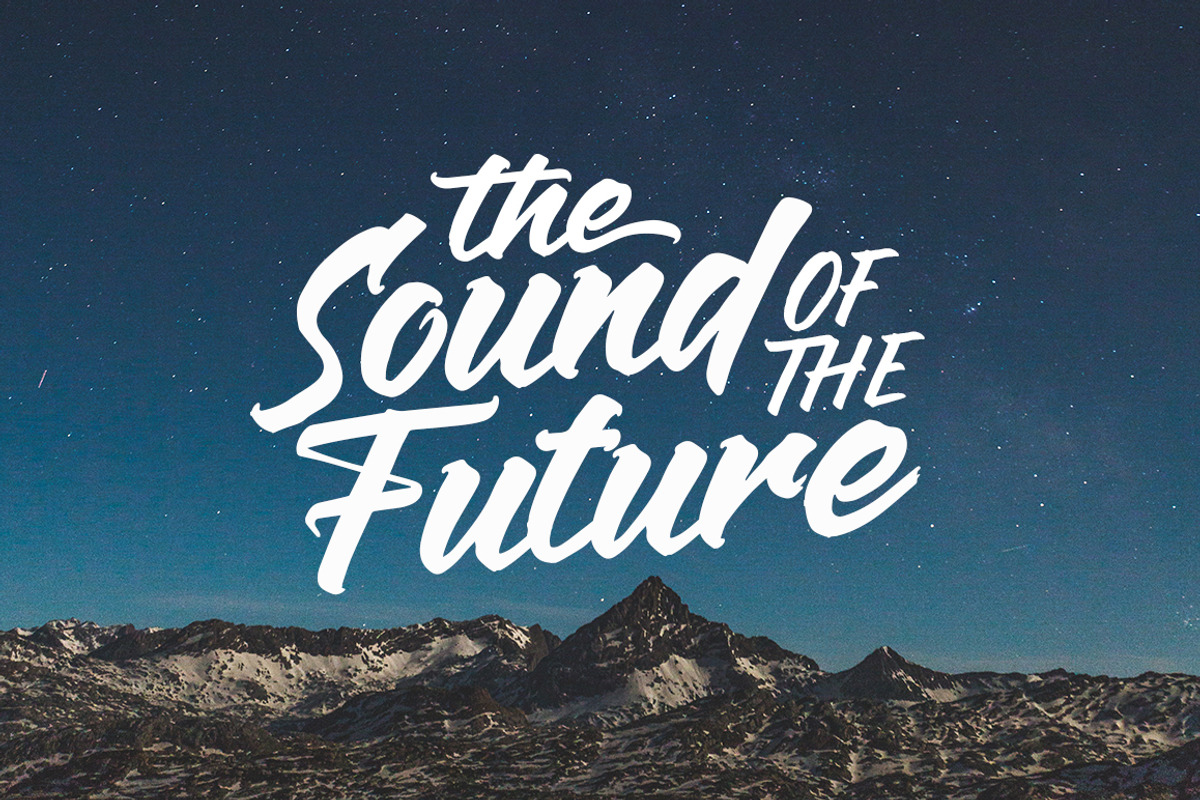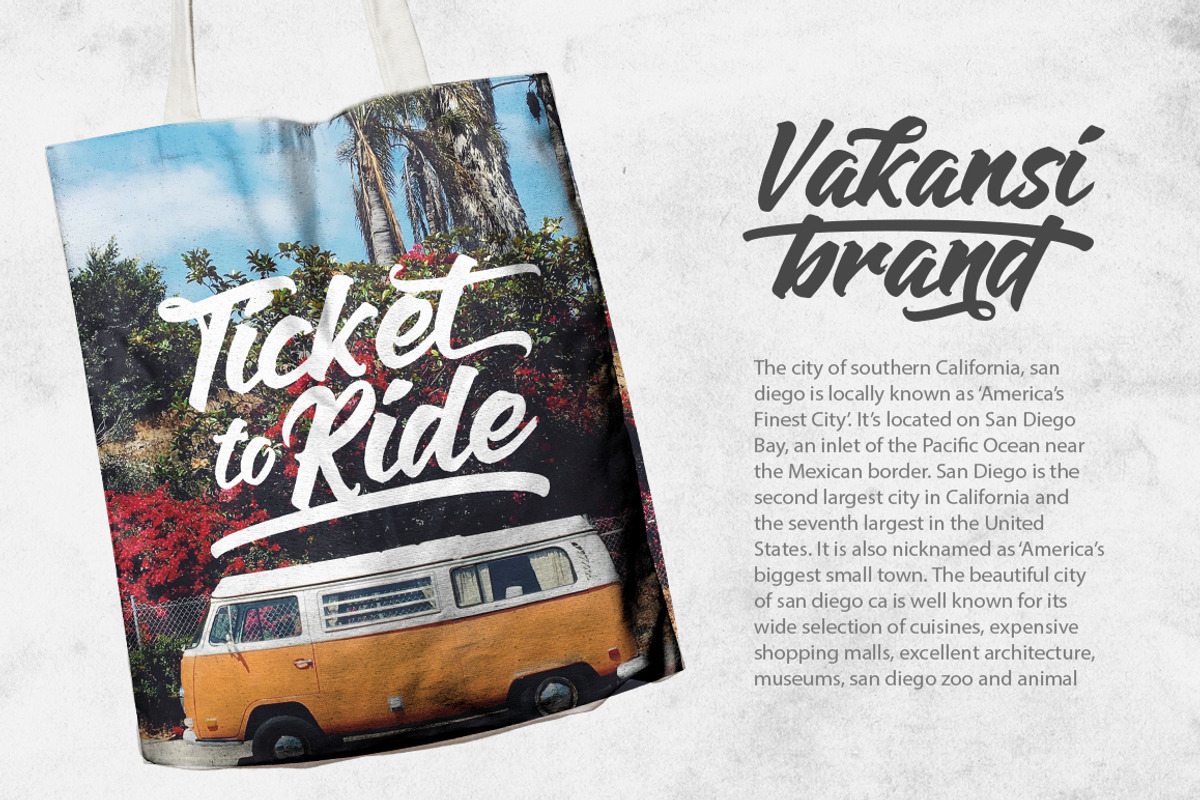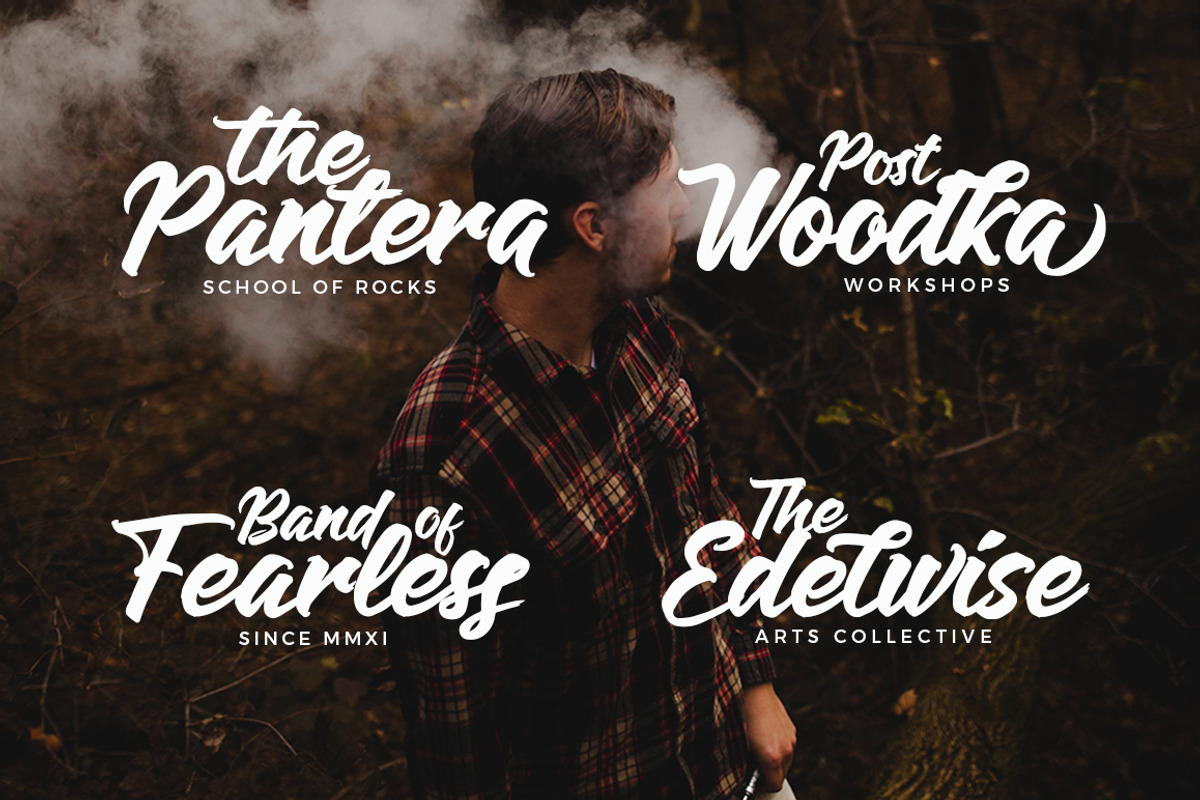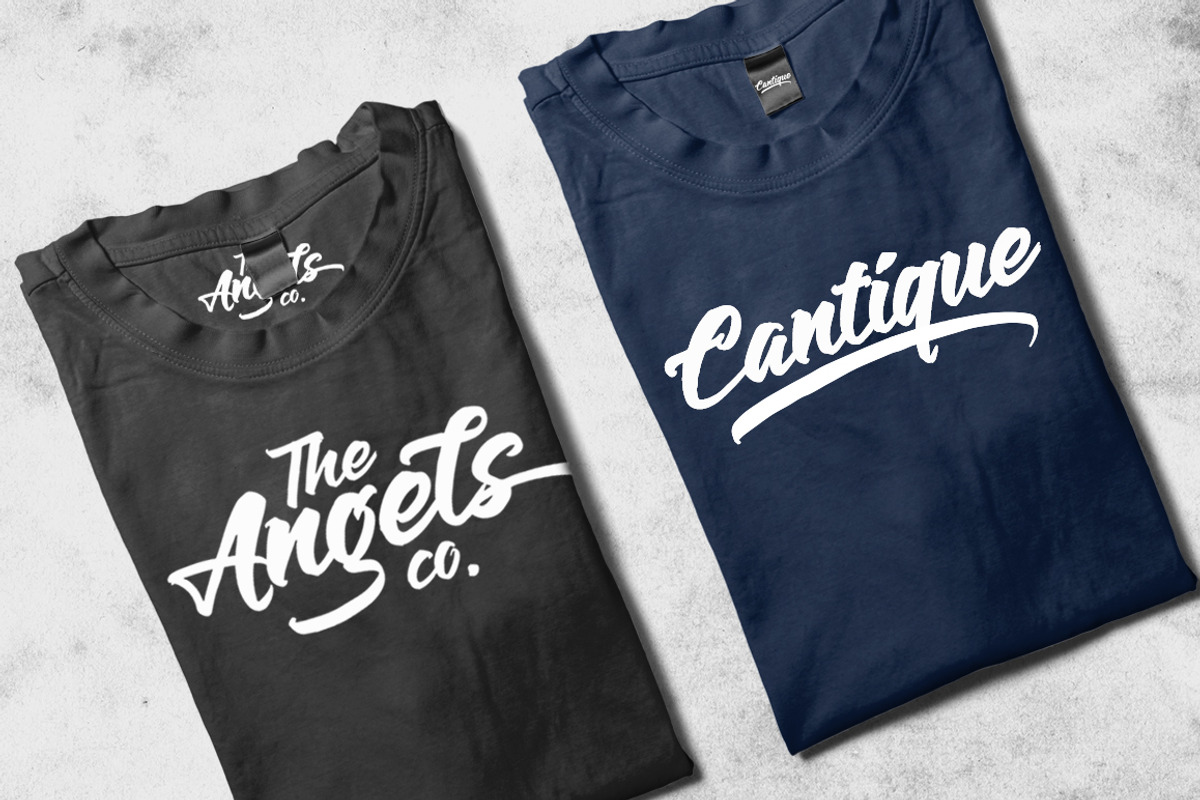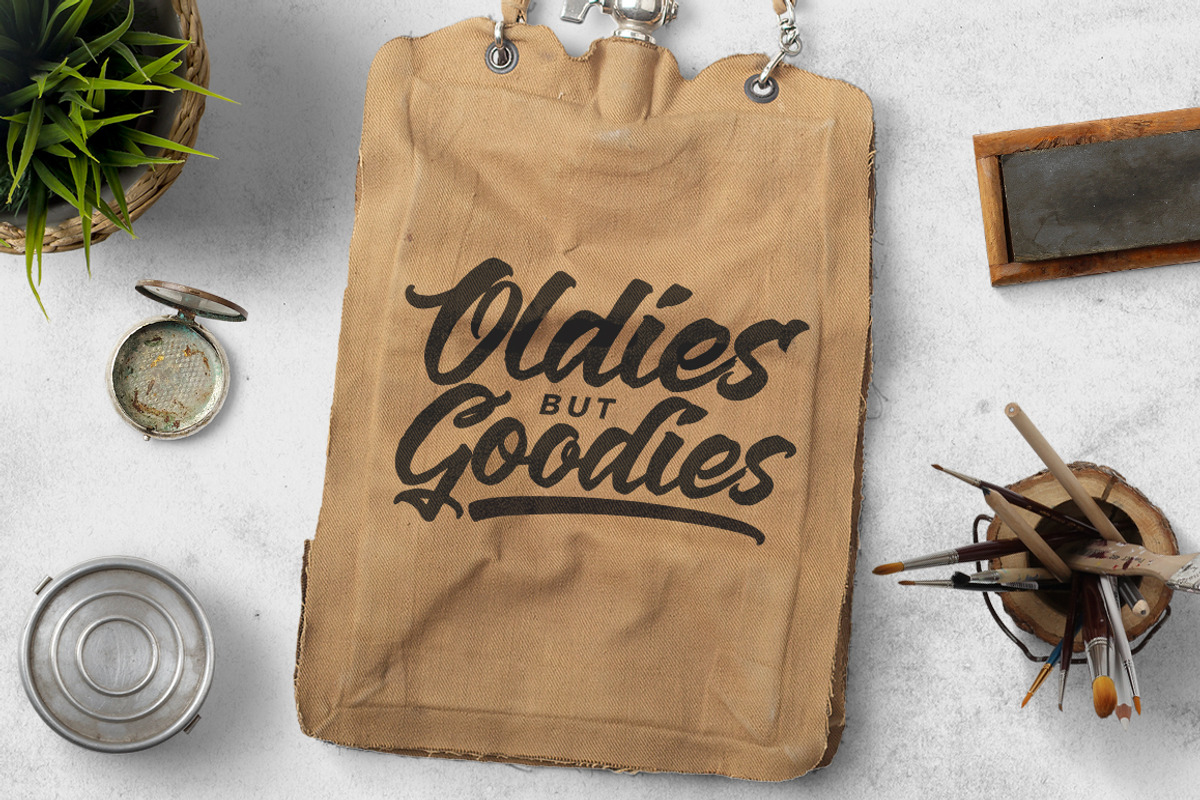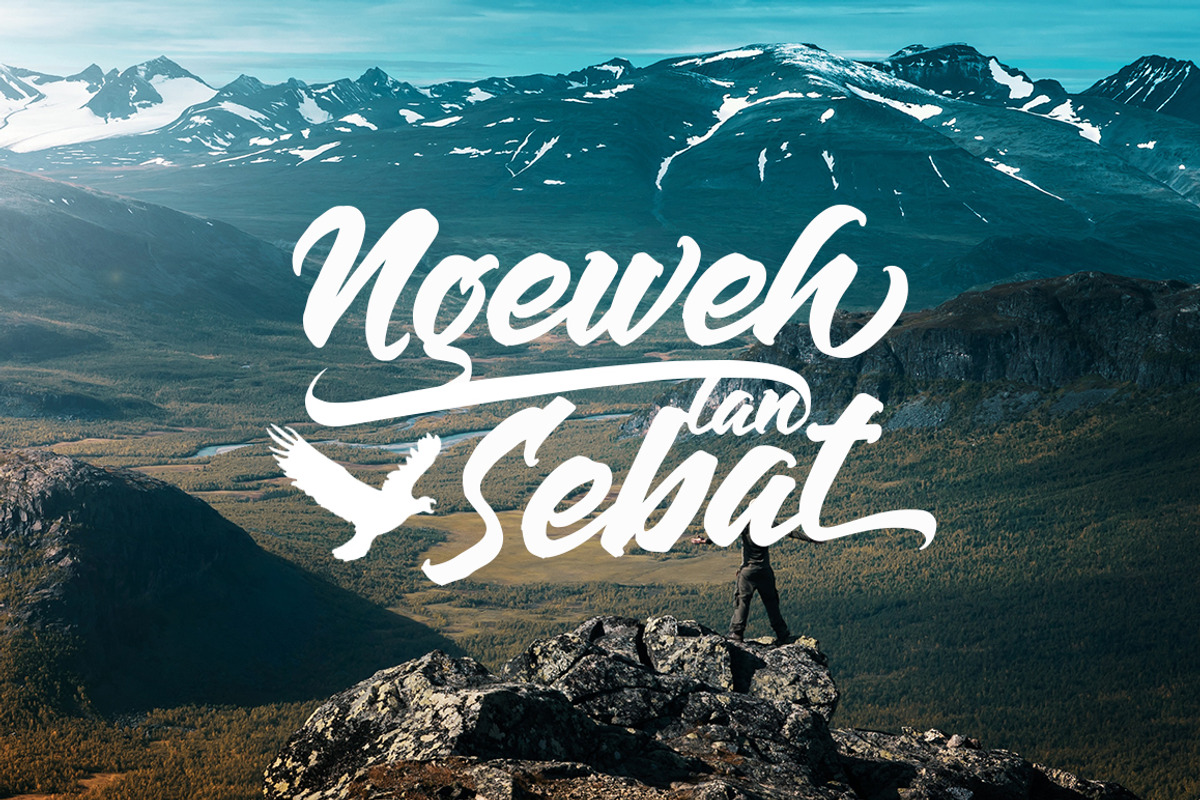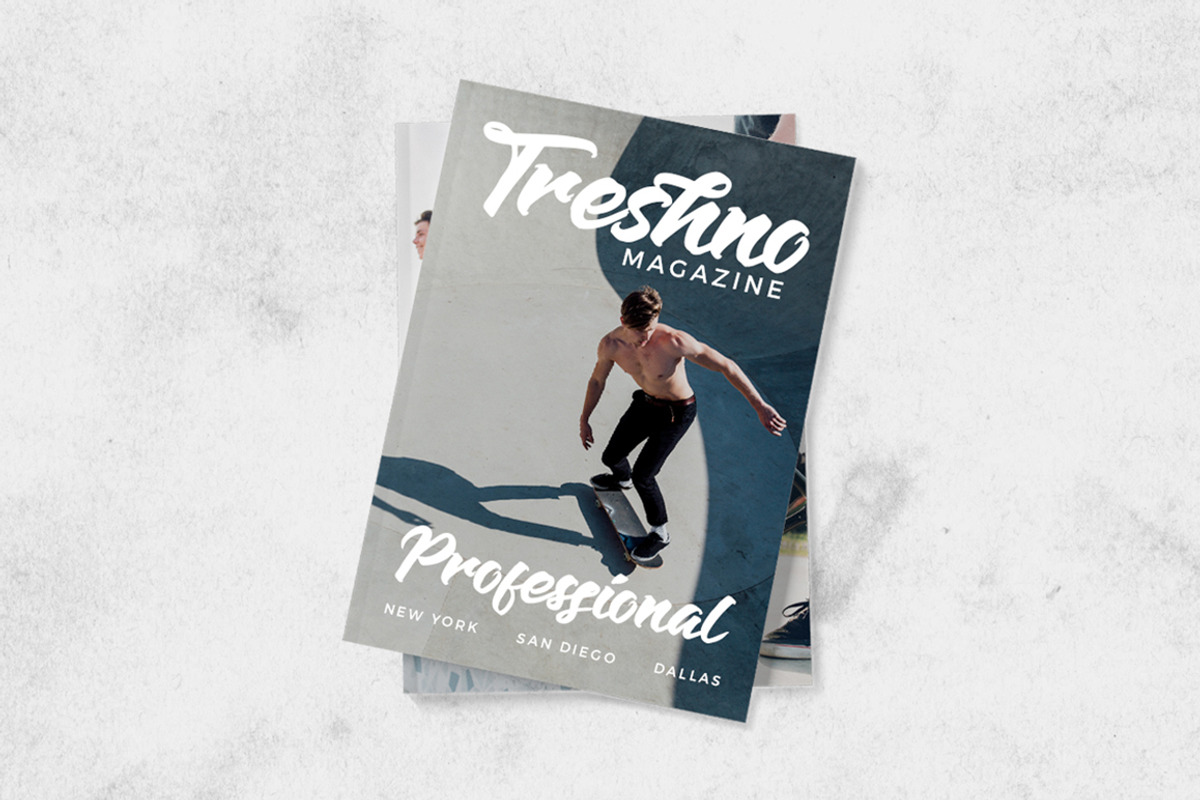
Anthares Font
Anthares Font by Wacaksara Co. is a font selected for branding, posters, packaging, typography.
- Anthares Font comes with uppercase, lowercase, numerals, punctuations and so many variations on each characters include opentype alternates,
Anthares Font by Wacaksara Co. fits naturally into Branding, posters, packaging, typography.